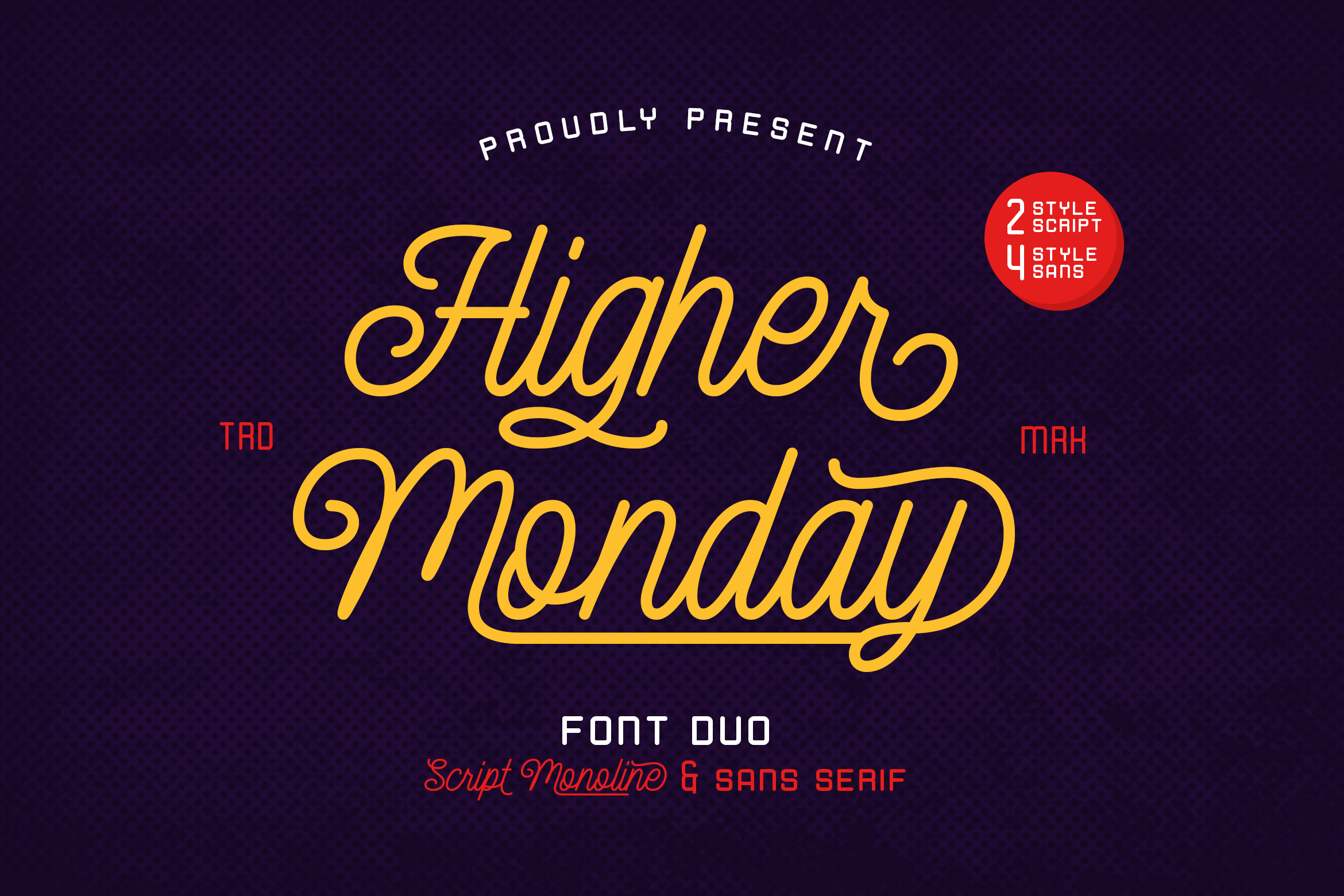
Higher Monday Font
About Higher Monday
Higher Monday is a trendy and well balanced script font. This versatile script font has a wide spectrum of applications ranging from greeting cards to headlines and is guaranteed to add a romantic feel to your next project.